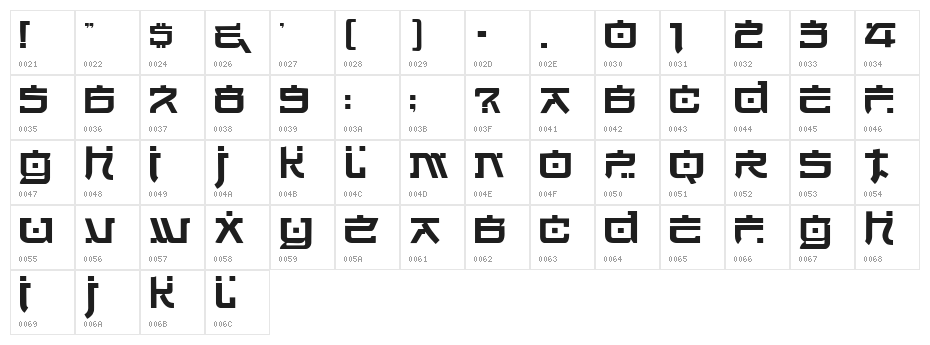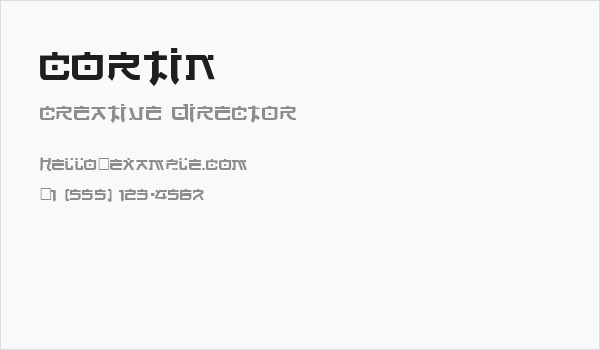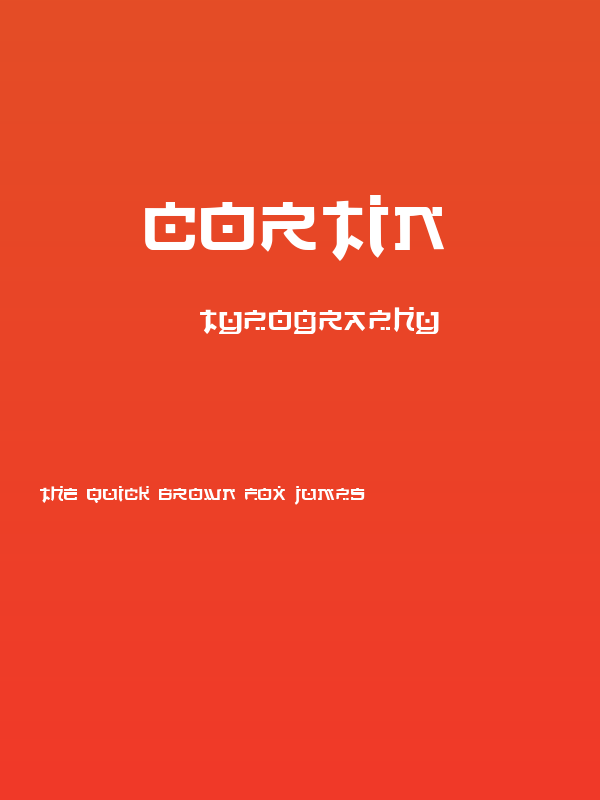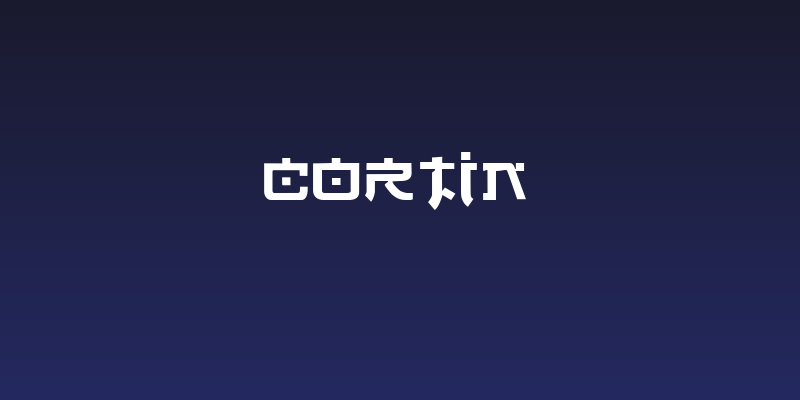
Cortin Font
Cortin Description
This font features a bold and futuristic design with a geometric structure. The characters are constructed with sharp angles and straight lines, giving it a tech-inspired appearance. The uppercase and lowercase letters maintain a consistent style, with unique cuts and edges that create a sense of movement and dynamism. The numbers and special characters follow the same design principles, ensuring uniformity across all glyphs. The font's boldness and distinct style make it stand out, ideal for projects that require a modern and edgy look.
| Proposed Projects | Ideal for tech-related branding, video game titles, sci-fi movie posters, and modern digital interfaces. |